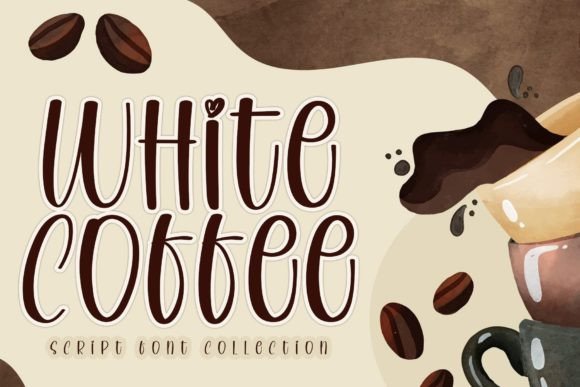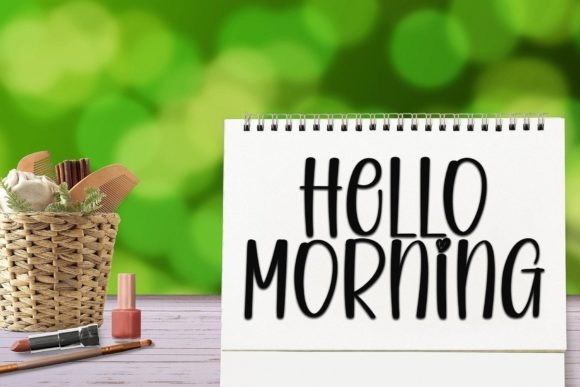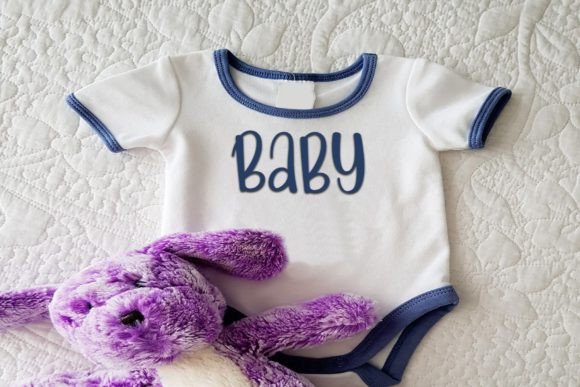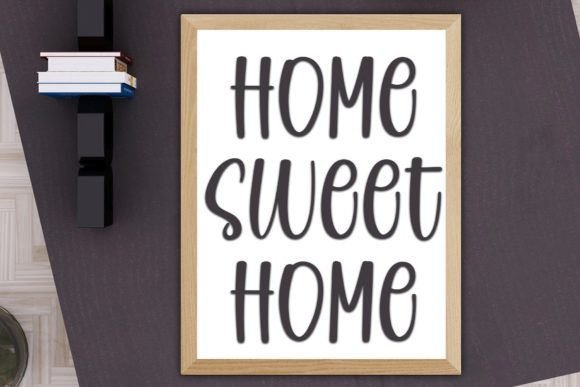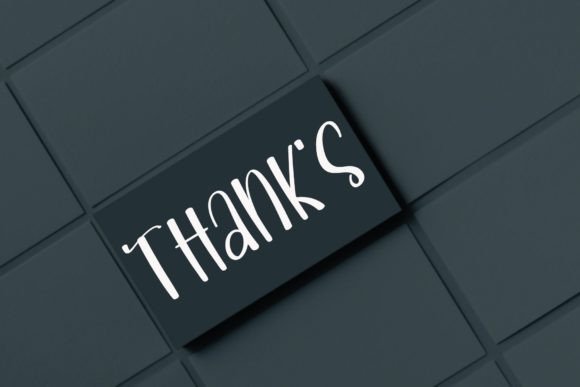
White Coffee Font
About White Coffee Font
White Coffee is a cheerful and handwritten font designed to infuse your designs with a sense of joy and fun. Perfect for a variety of applications such as branding, packaging, logotypes, headlines, wedding invitations, and more, this font is crafted to evoke a happy and lighthearted mood.
The playful and informal nature of White Coffee adds a touch of personality to your designs, making it an ideal choice when you want to create a lively and enjoyable atmosphere. Whether you’re working on a product’s packaging, establishing a brand identity, or crafting wedding invitations, White Coffee brings a happy and upbeat vibe to the forefront.
Its handwritten style exudes a sense of authenticity, adding a personal and human touch to your projects. The font’s versatility allows it to adapt seamlessly to various design contexts, making it a dynamic choice for any creative endeavor that requires a dash of happiness.
In essence, White Coffee is more than just a font; it’s a design tool crafted to bring a happy and fun mood to your creations. Choose White Coffee to infuse your designs with a sense of cheerfulness and playfulness, ensuring that your projects radiate positivity and enjoyment.